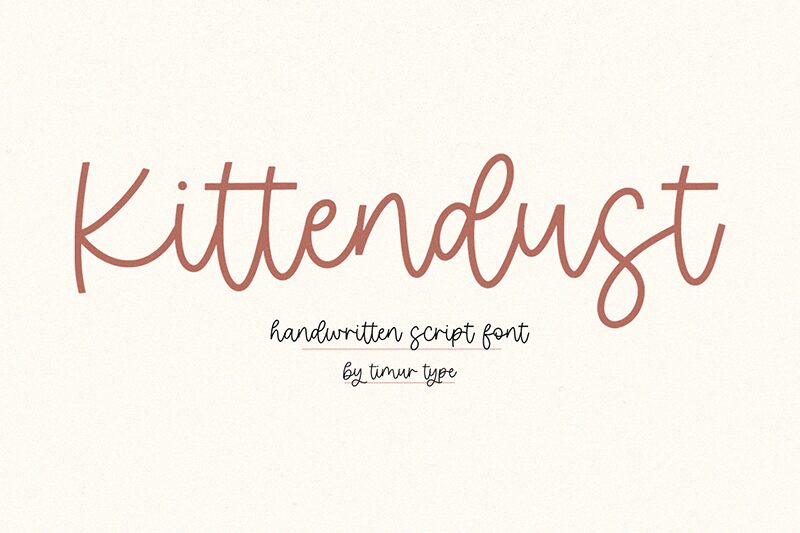
Kittendust
Kittendust, crafted by Timur Type, brings a touch of personal flair to the digital canvas. This light font exudes an effortless grace with its handwritten style, capturing the charm of ink flowing across paper. Each curve and stroke of Kittendust offers an intimate glimpse into the artistry typically reserved for penmanship, making it a delightful choice for invitations, branding, or any project that requires a sprinkle of warmth and individuality.
With its slender lines and delicate form, Kittendust stands out as a font that blends casual elegance with playful sophistication.